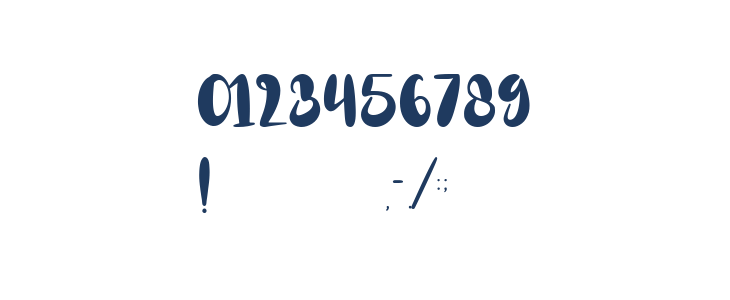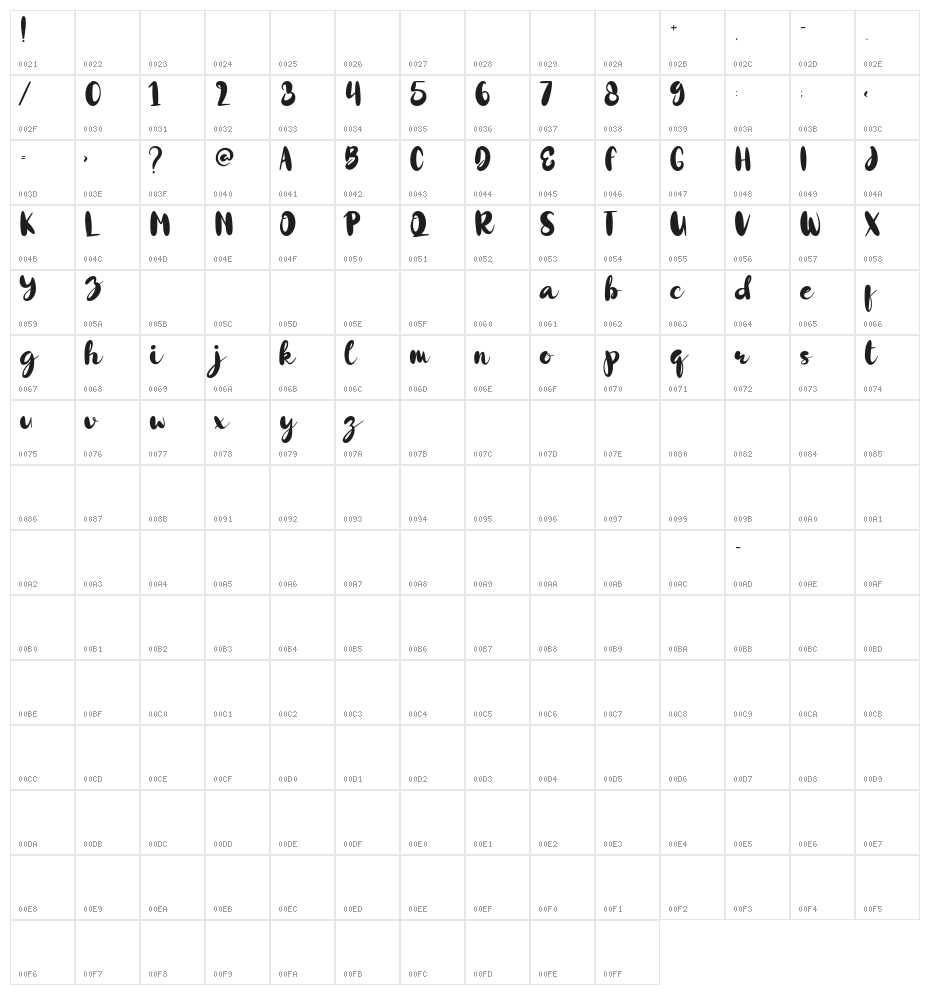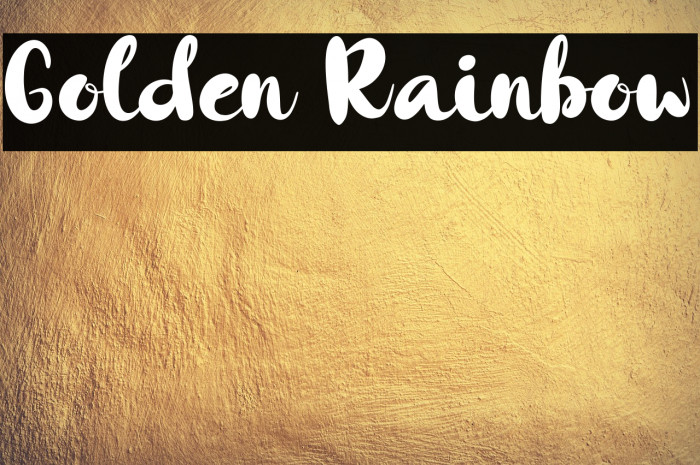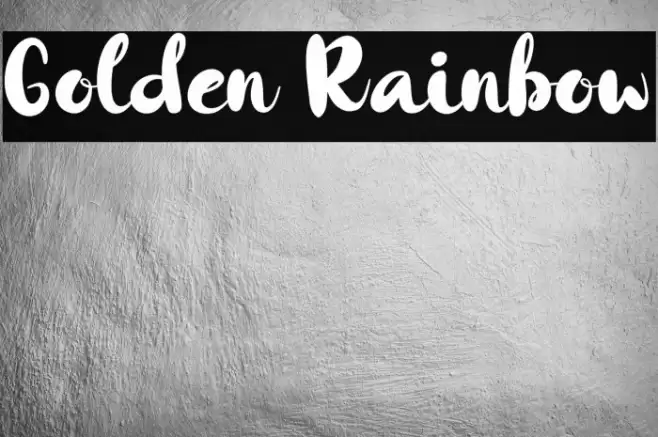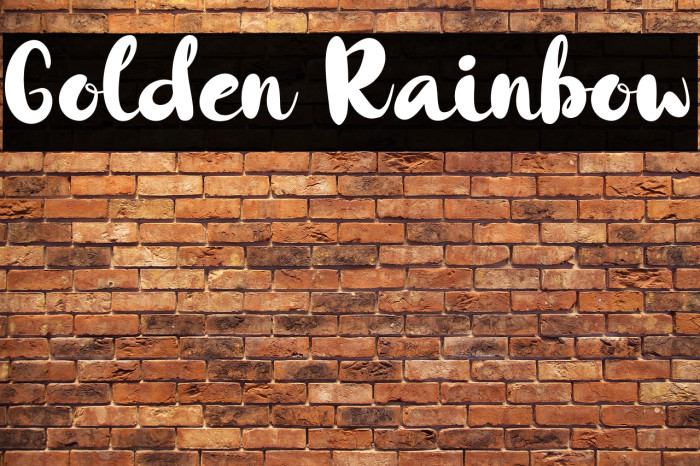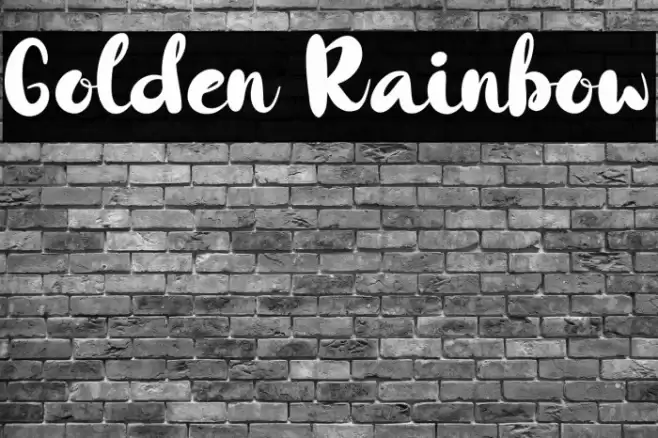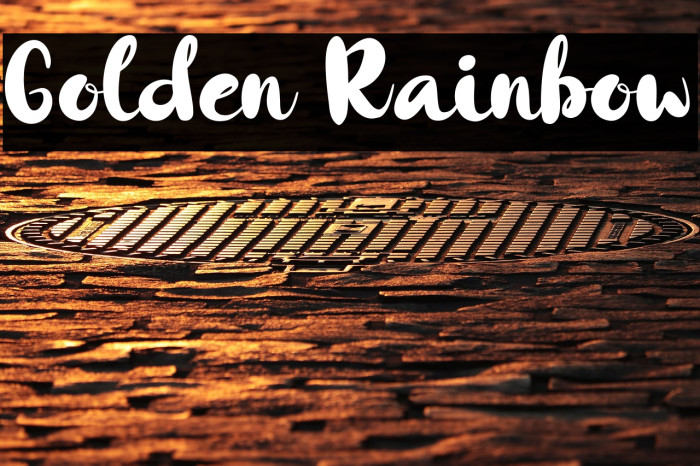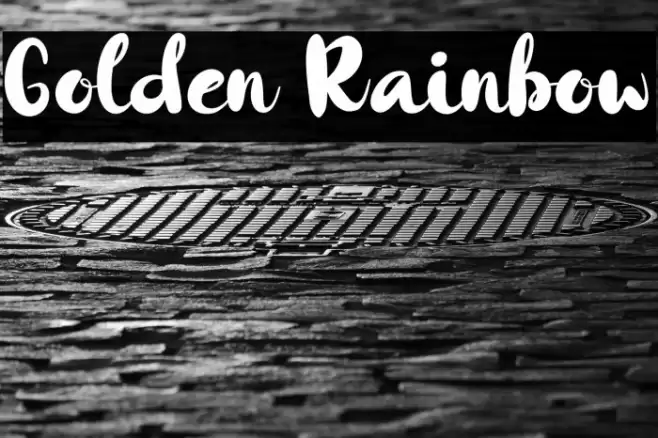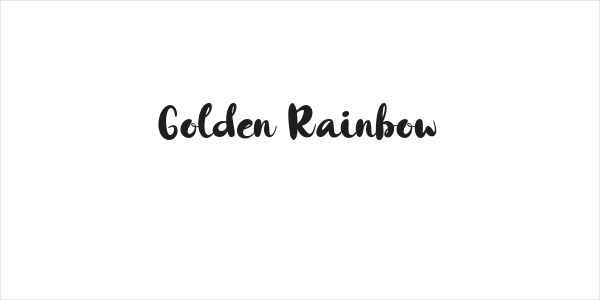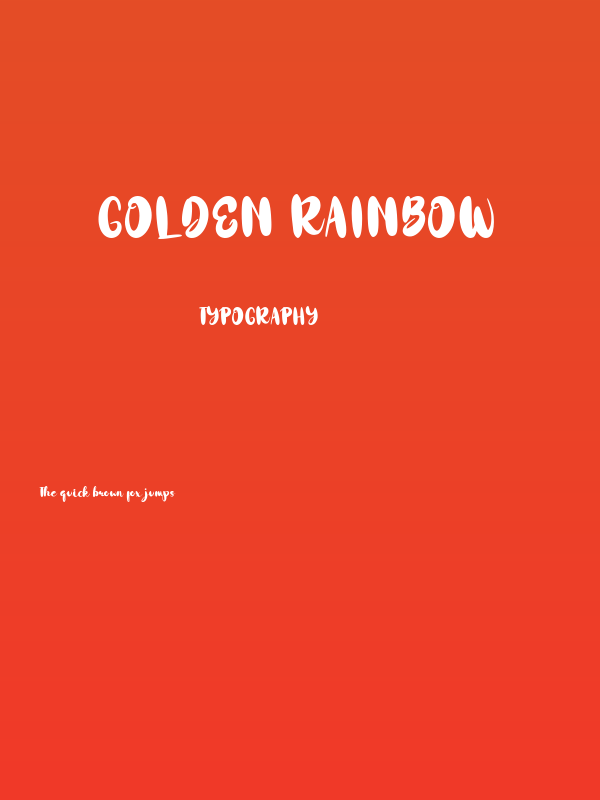
Golden Rainbow Font
Golden Rainbow Description
This font features a bold and expressive script style with a playful and artistic flair. The letters are characterized by their thick, flowing strokes and smooth curves, creating a sense of movement and dynamism. The uppercase letters are bold and prominent, while the lowercase letters maintain a consistent flow with elegant loops and swashes. The numbers are equally bold, matching the overall style of the alphabet. Special characters are included, adding versatility to the font. The overall appearance is modern and stylish, making it suitable for creative and decorative purposes.
| Proposed Projects | Ideal for branding, invitations, posters, and creative projects that require a modern and artistic touch. |